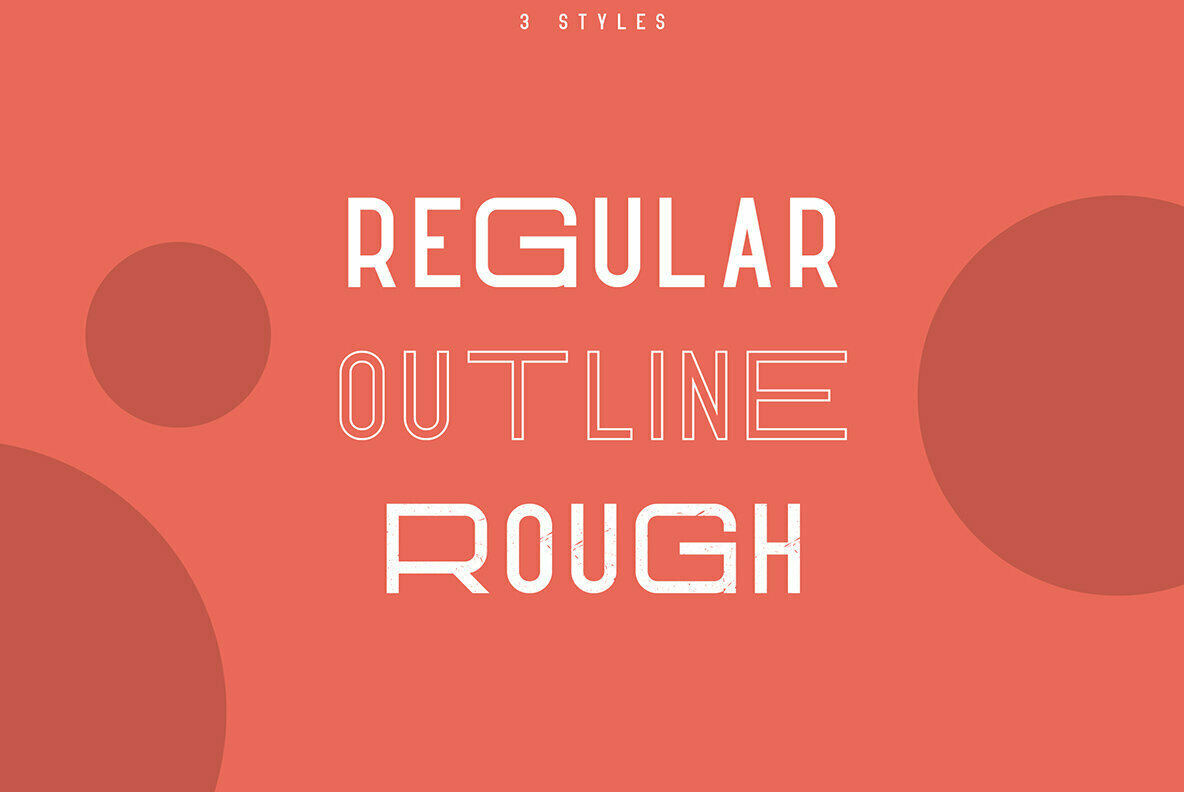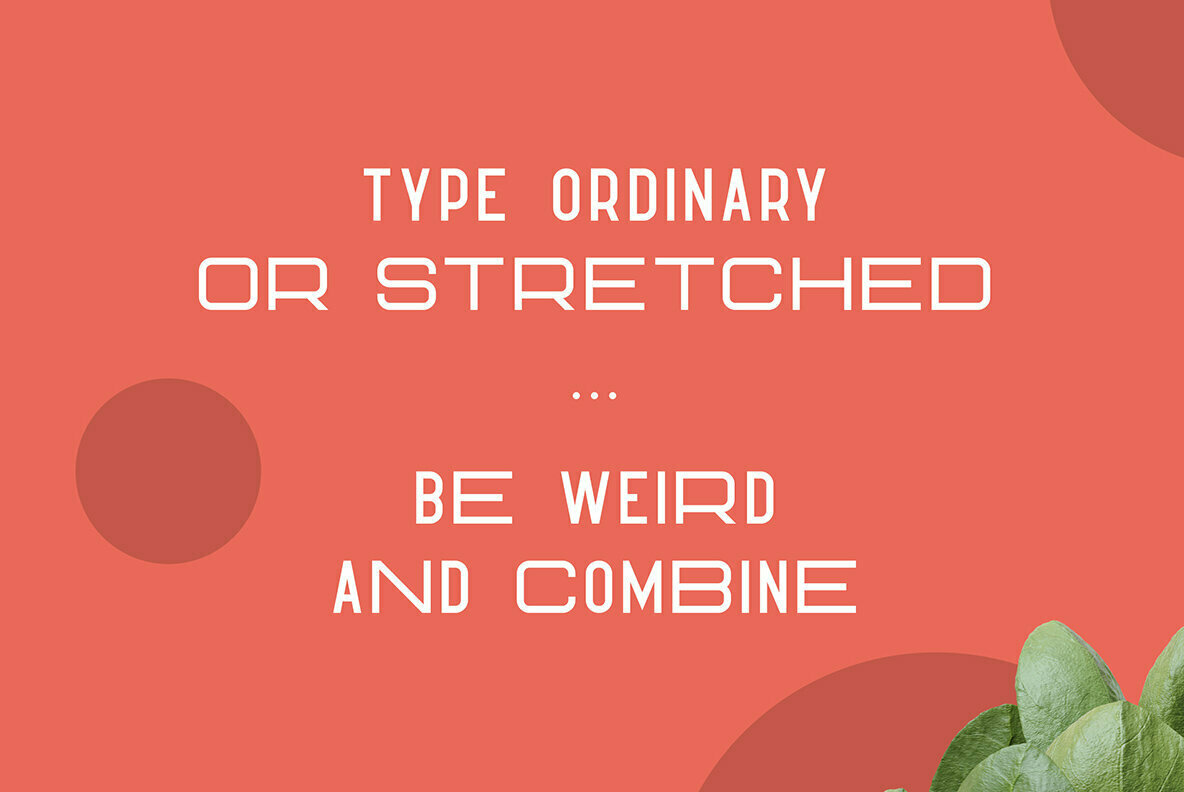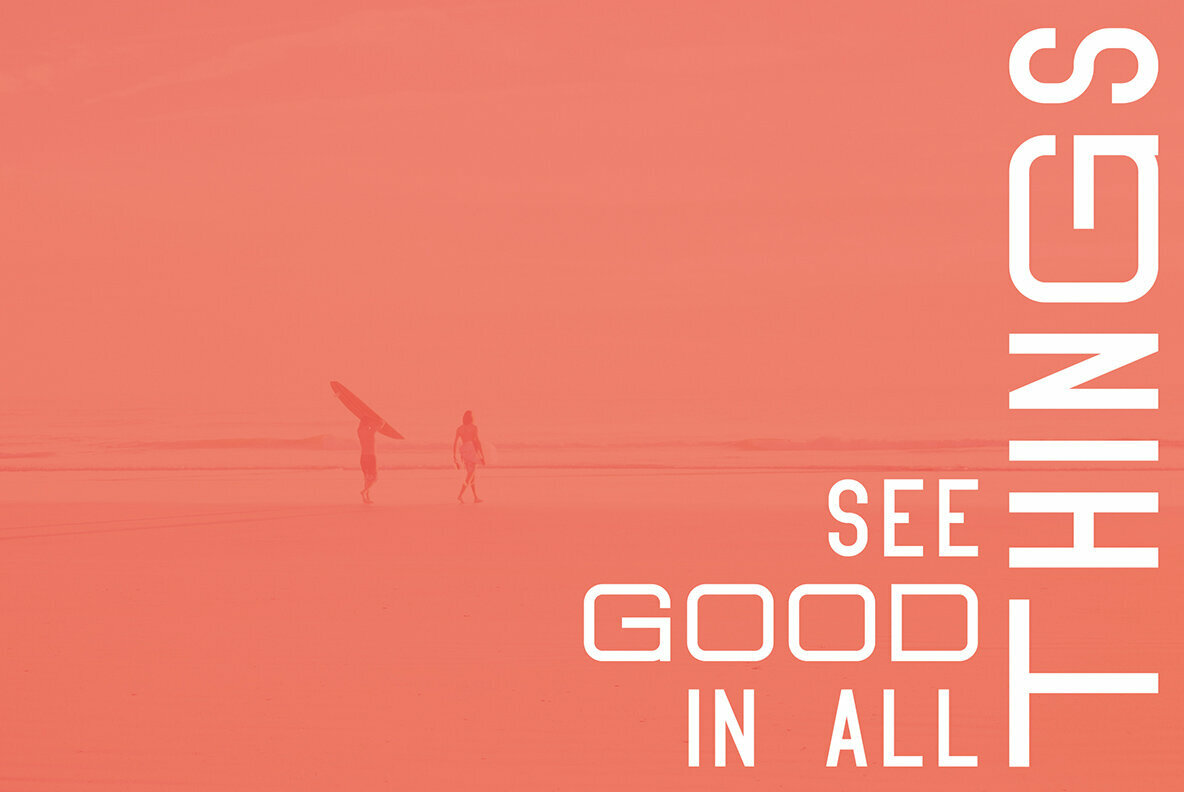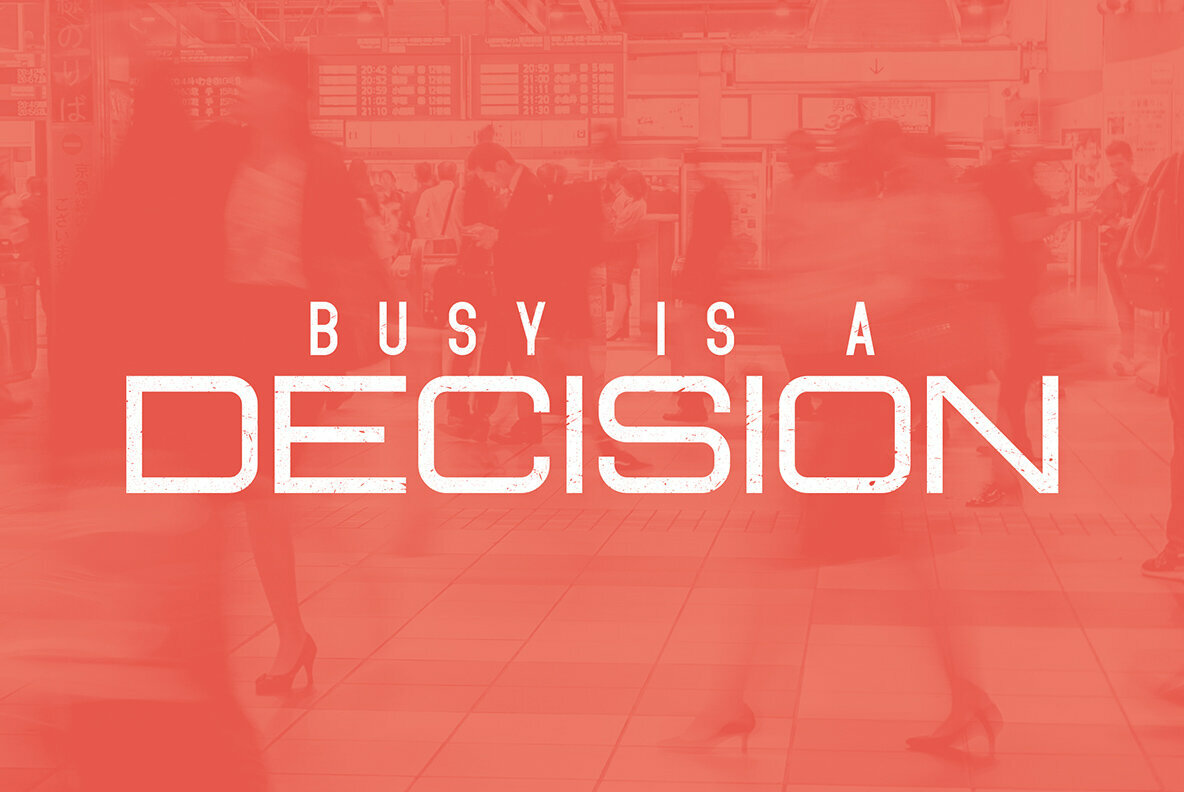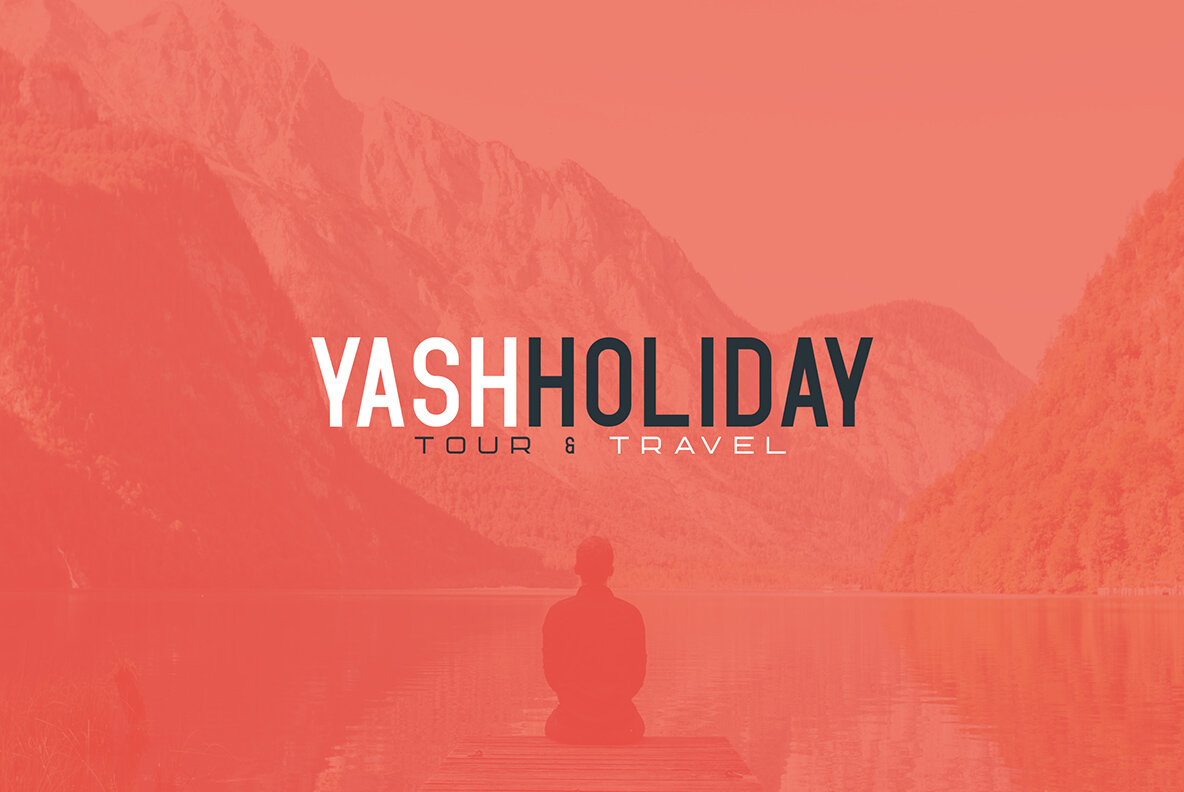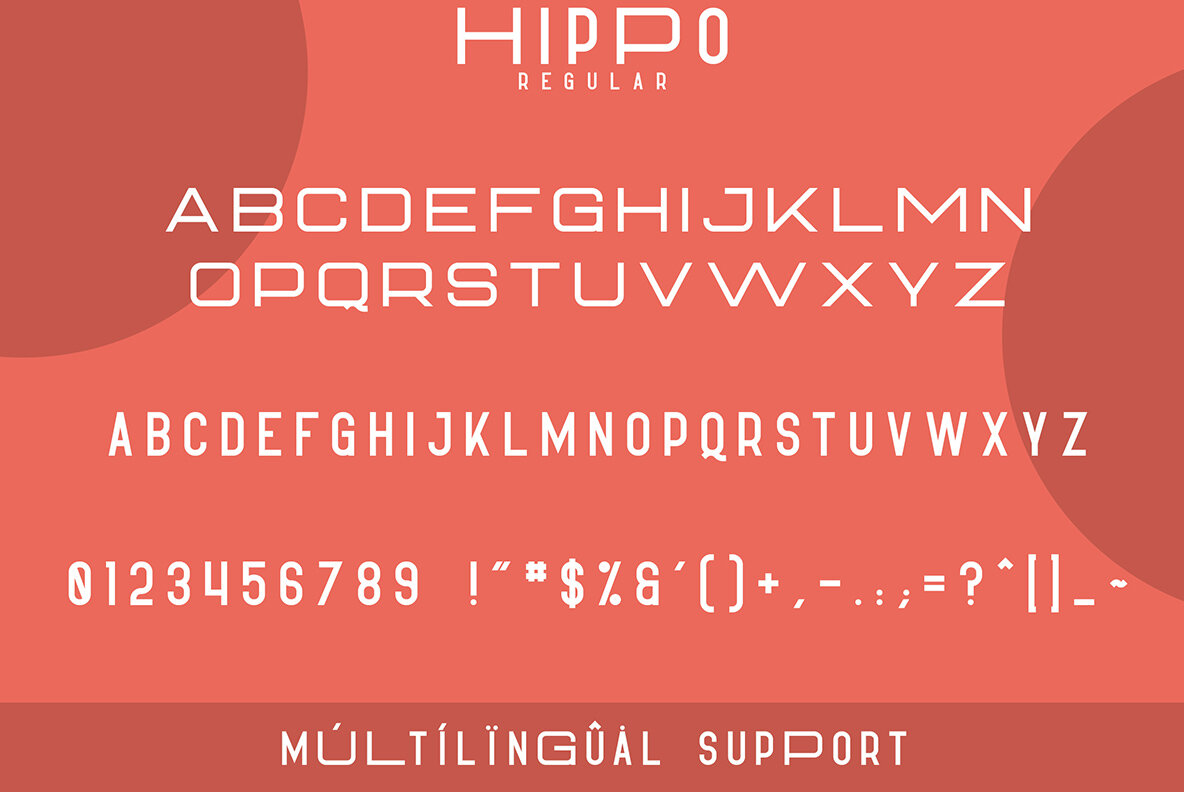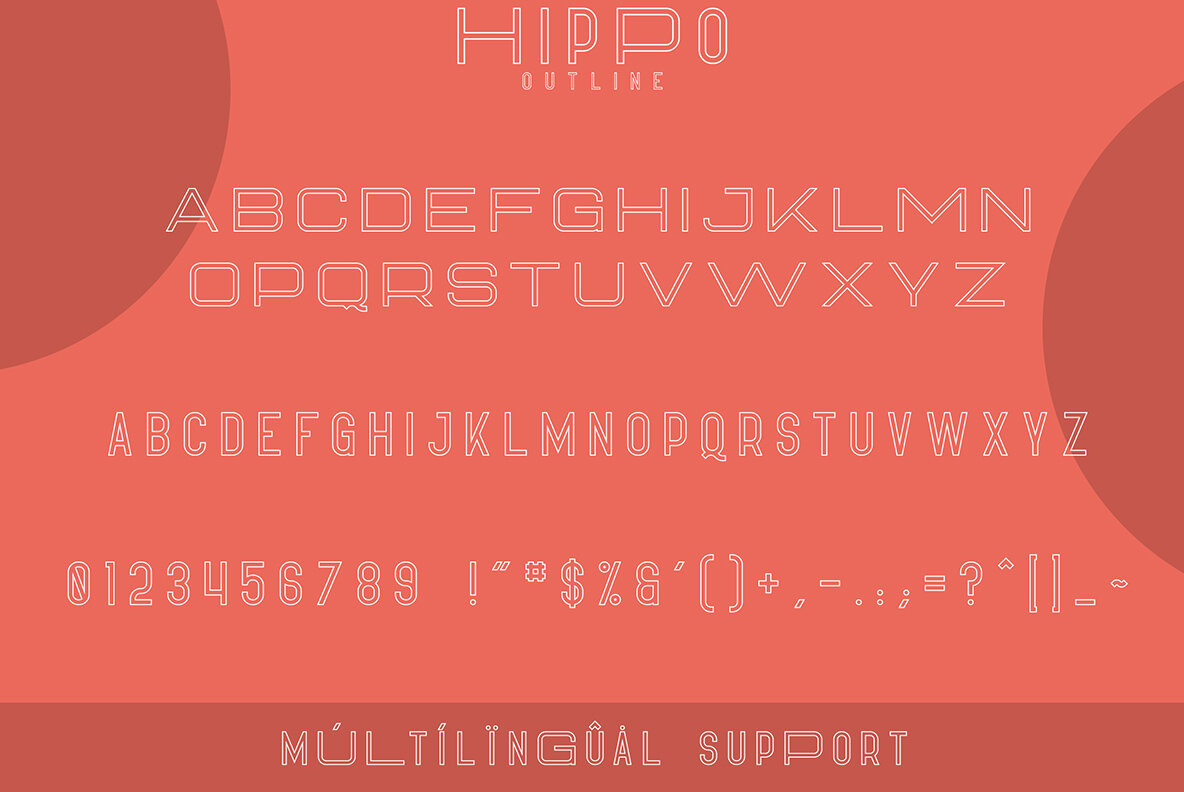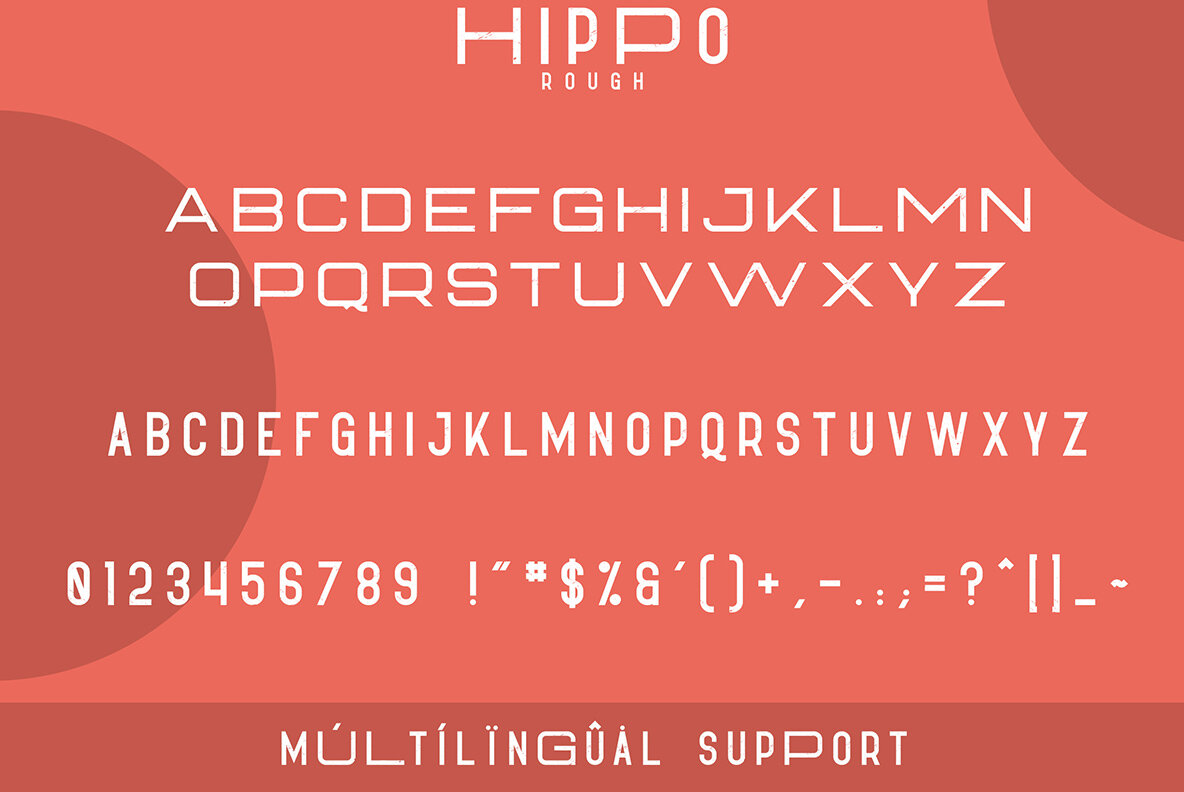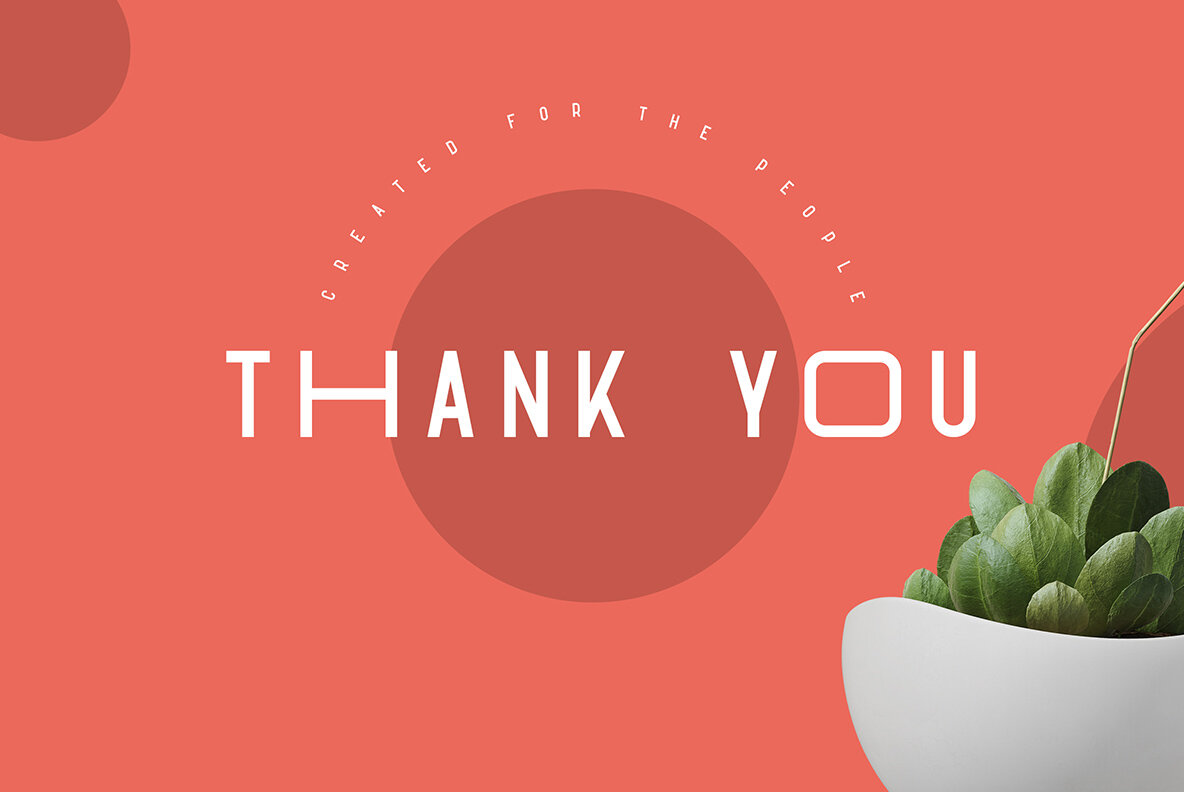
Hippo Sans Serif Font
Hippo Regular
Hippo Outline
Hippo Rough
The Hippo Sans Serif font offers a distinctive balance of playful and clean aesthetics, featuring three diverse styles and comprehensive multilingual support. This versatility makes it equally suitable for statements in bold headlines or detailed compositions in smaller print. Hippo's unique charm makes it a prime choice for a range of creative ventures. It excels in branding, elegantly wrapping product packaging, enhancing home-ware design, and providing an eye-catching punch to magazine headers. As a text overlay, it seamlessly adapts to various backgrounds, adding a touch of sophistication.Hippo Sans Serif: Balance Between Quirk and Clarity